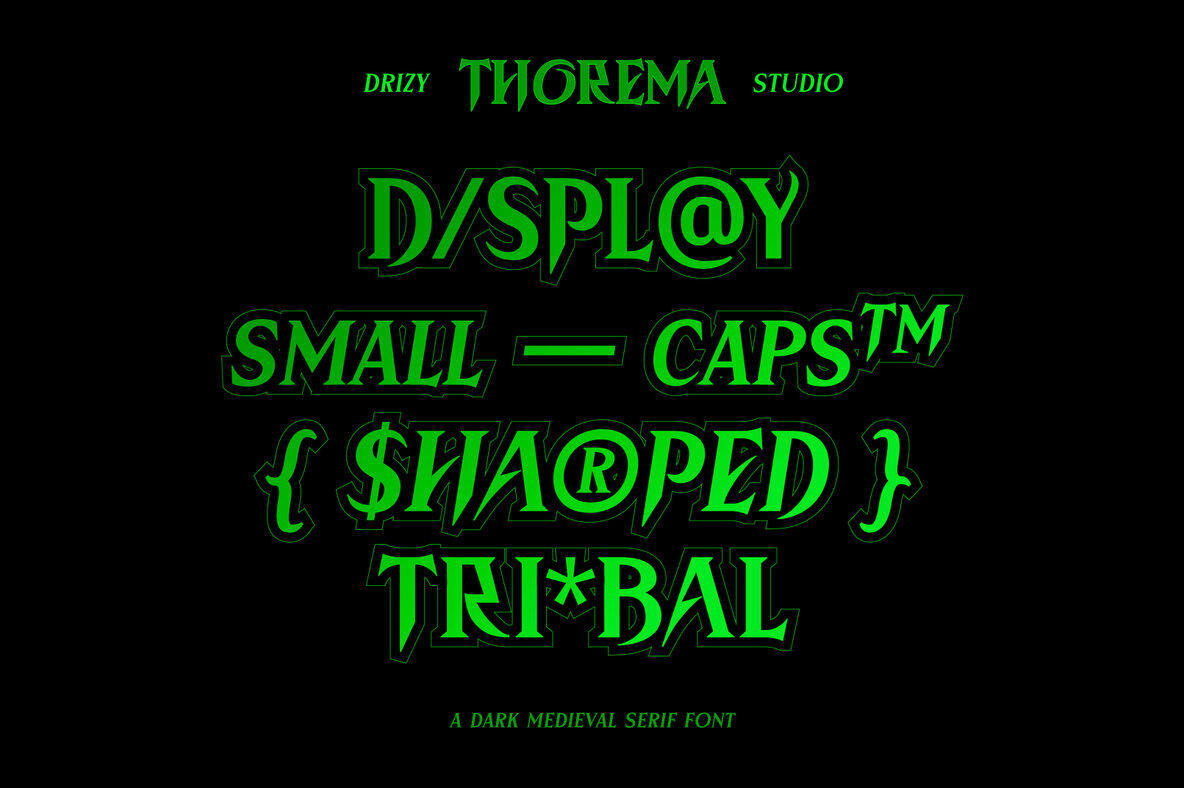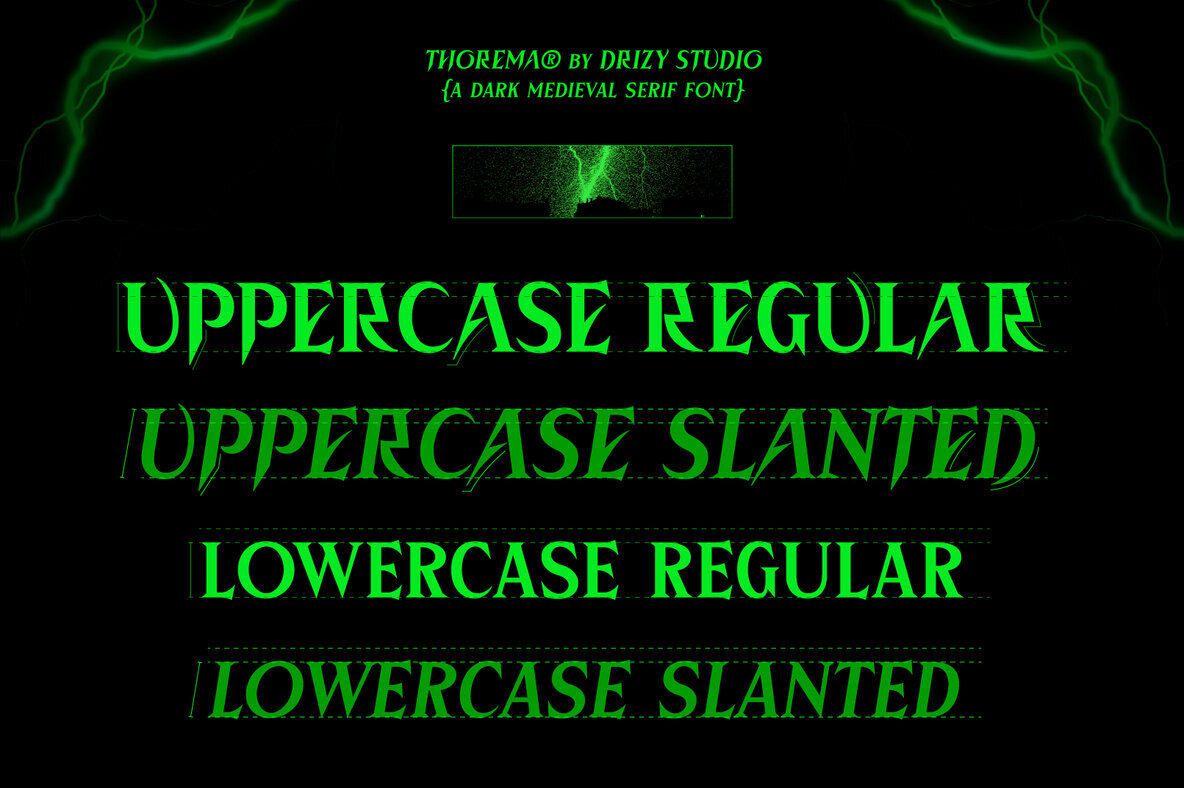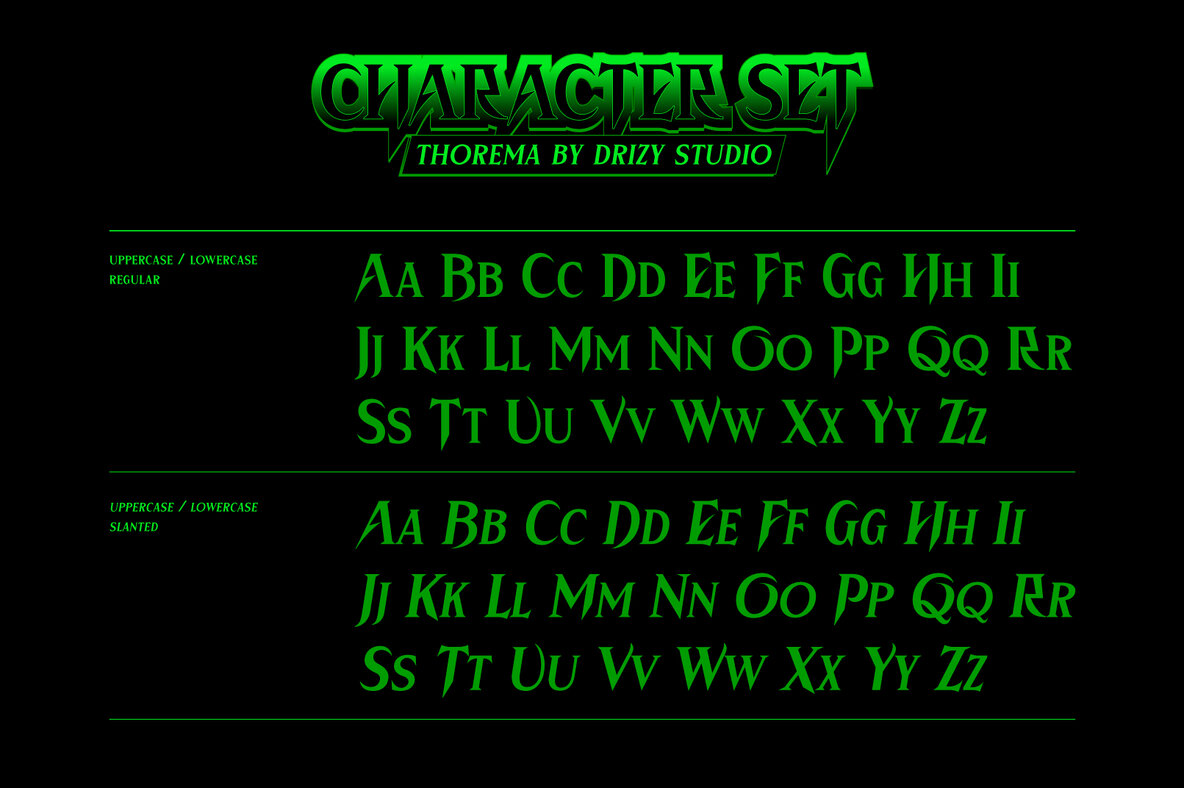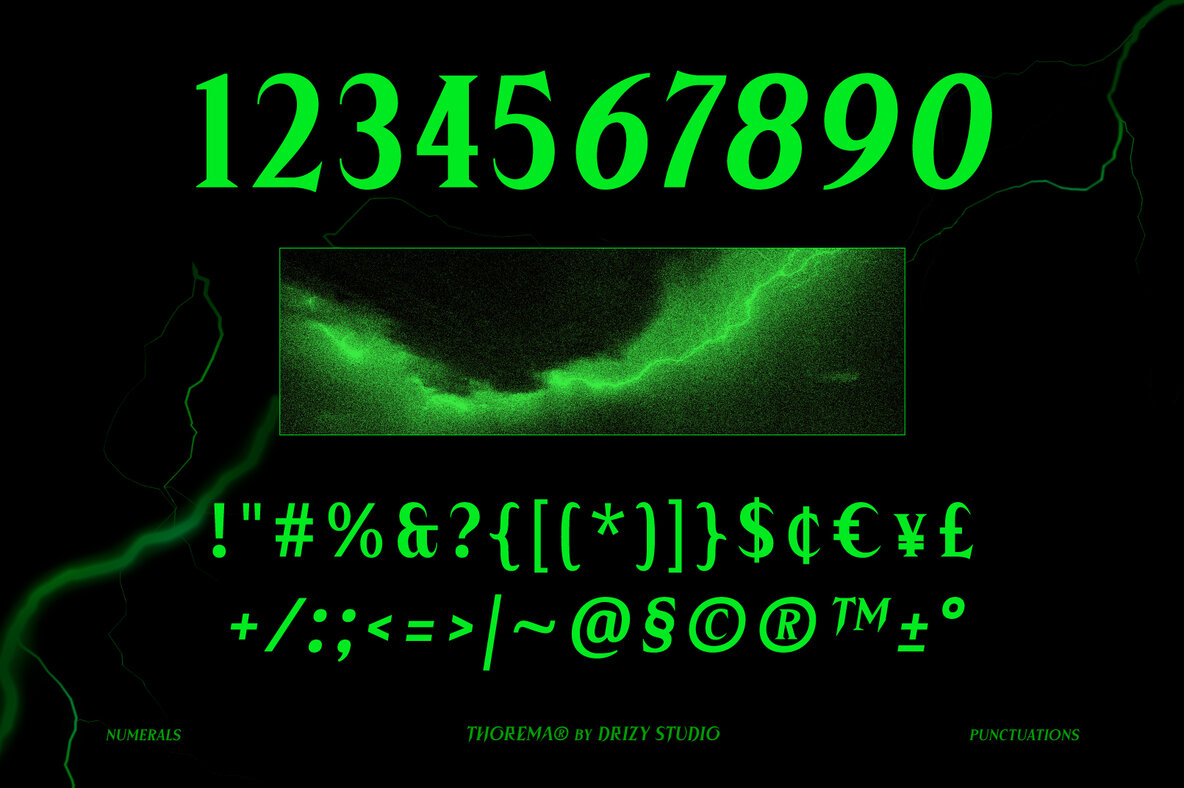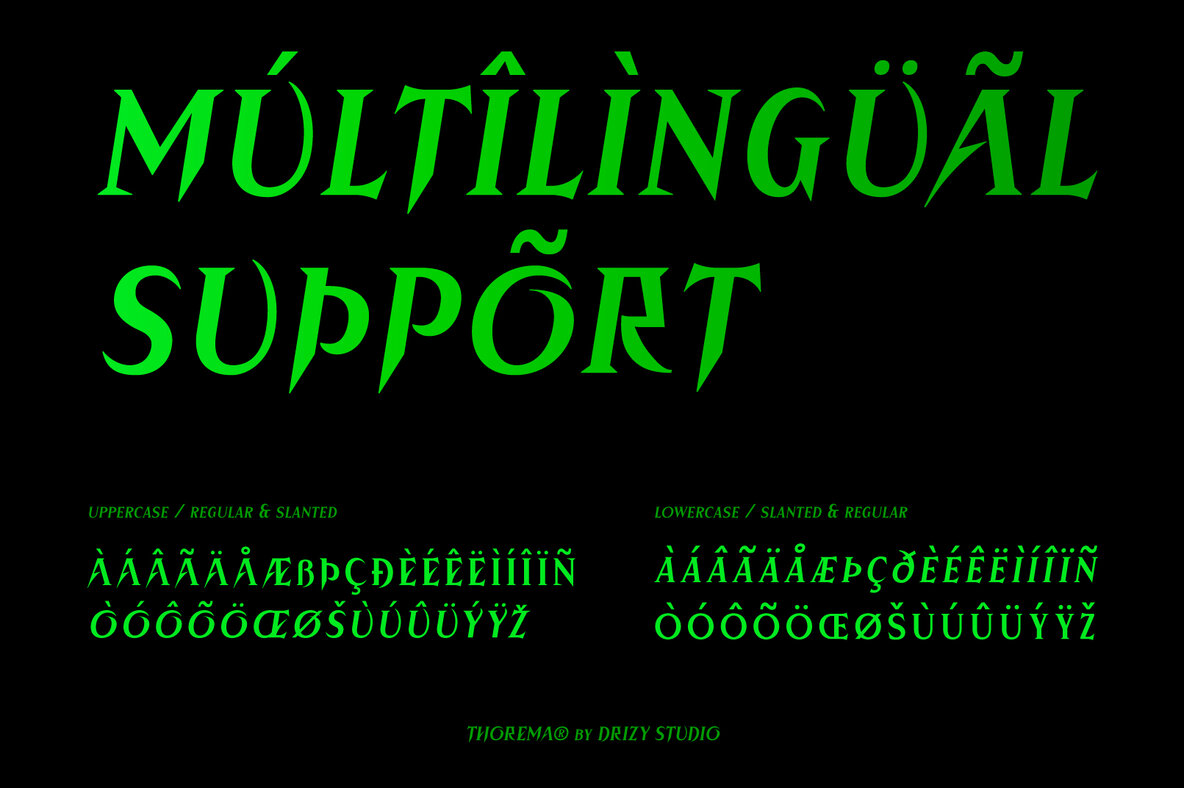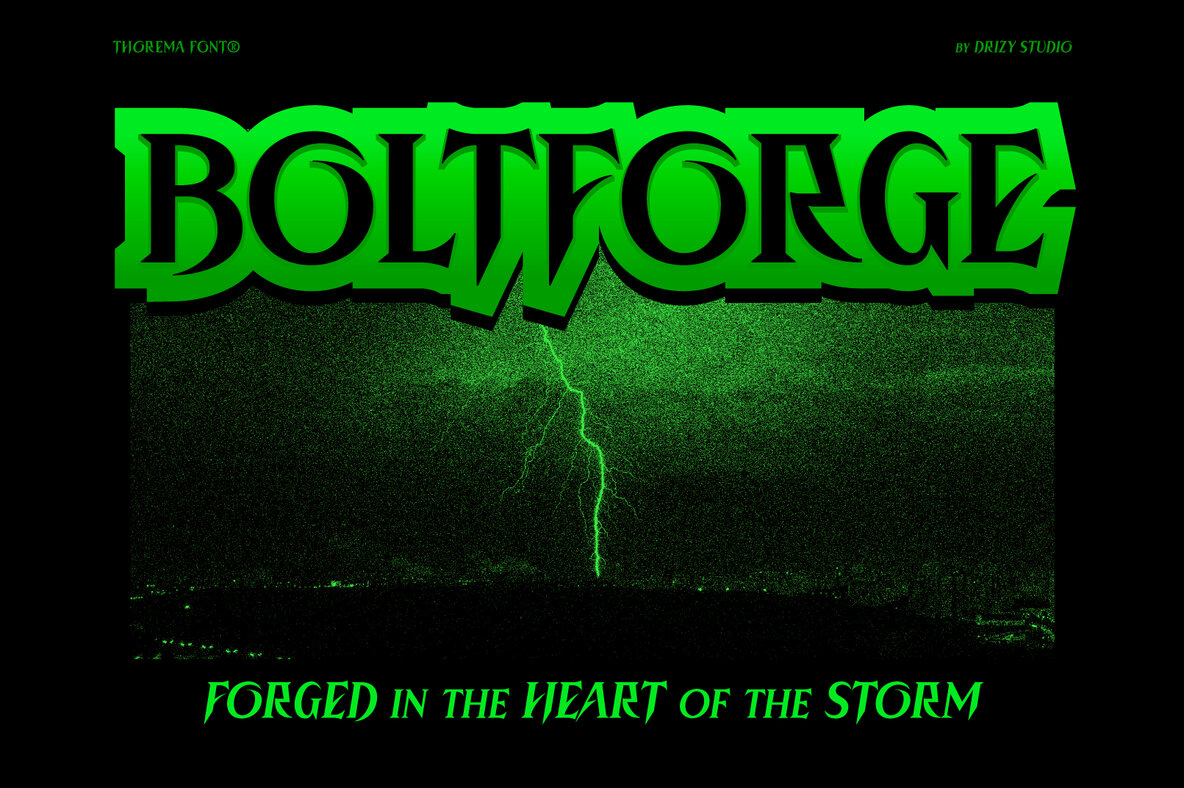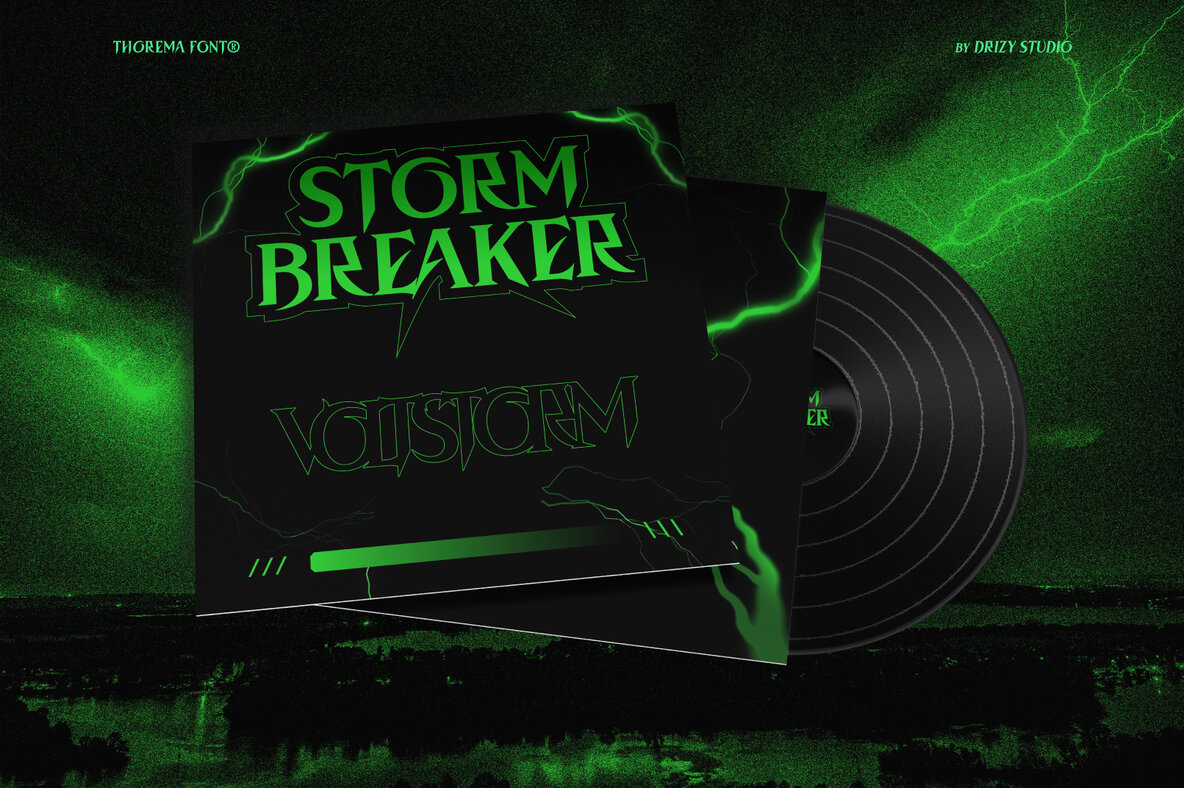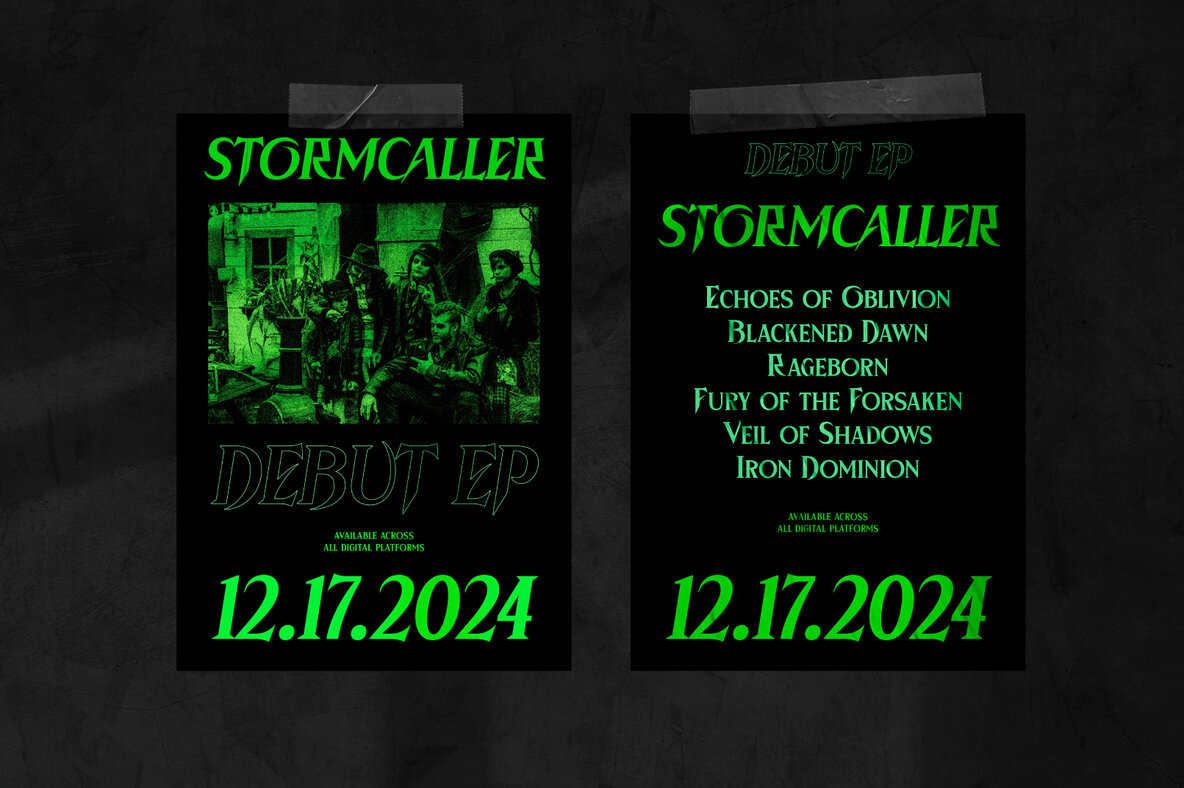
Thorema Font
Thorema is a bold serif font that merges the elegance of medieval style with the modern edge of dark futuristic design. It's crafted for the music industry, ideally enhancing album covers, band logos, and promotional materials with its inherent drama and mystery. The sharp details and intricate curves of Thorema convey both power and sophistication, which aligns perfectly with dark and futuristic aesthetics. This makes it an excellent choice for designers working on gothic metal bands or experimental electronic projects.
Thorema includes a complete character set with both uppercase and lowercase letters, punctuation, numbers, and multilingual support. This versatility ensures that the font fits a wide range of design needs, providing a timeless character that adds depth and intrigue to any project.